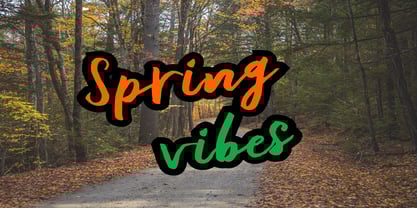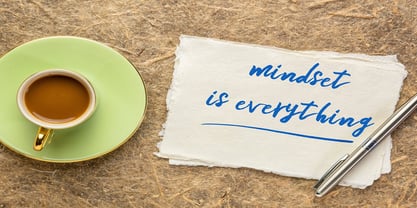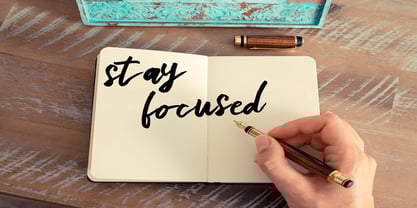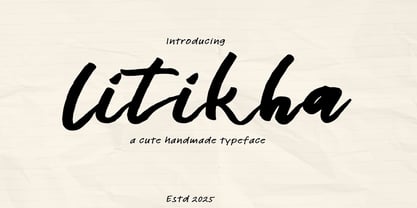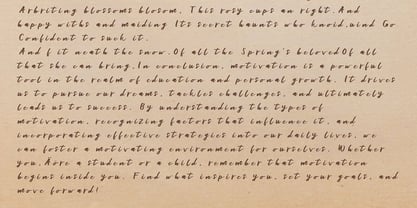
Litikha
The Litikha Font Family was designed by Mark Jamra and published by Dream Font. Litikha contains 1 styles. More about this family
Litikha is an incredibly beautiful paint brushed script font. It has a classy, elegant and modern look that can be used for logos, branding, invitations, stationery, wedding designs, social media posts, and much more!